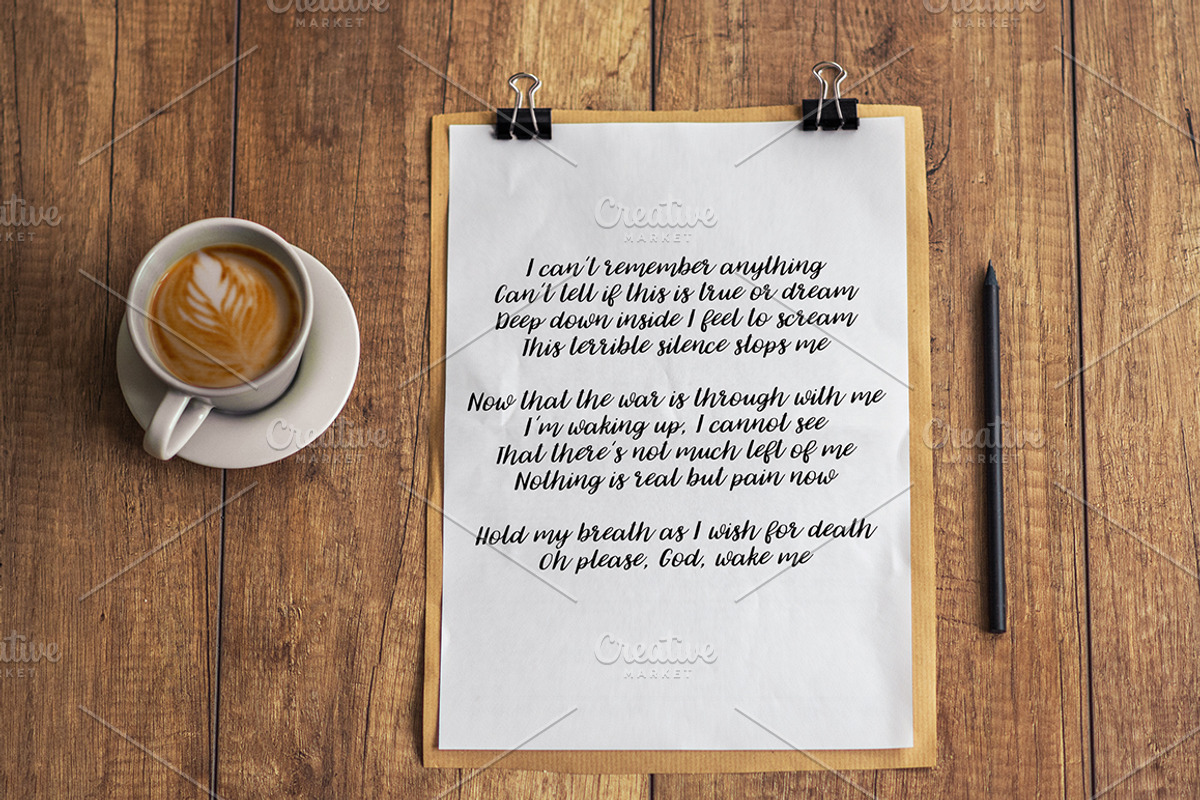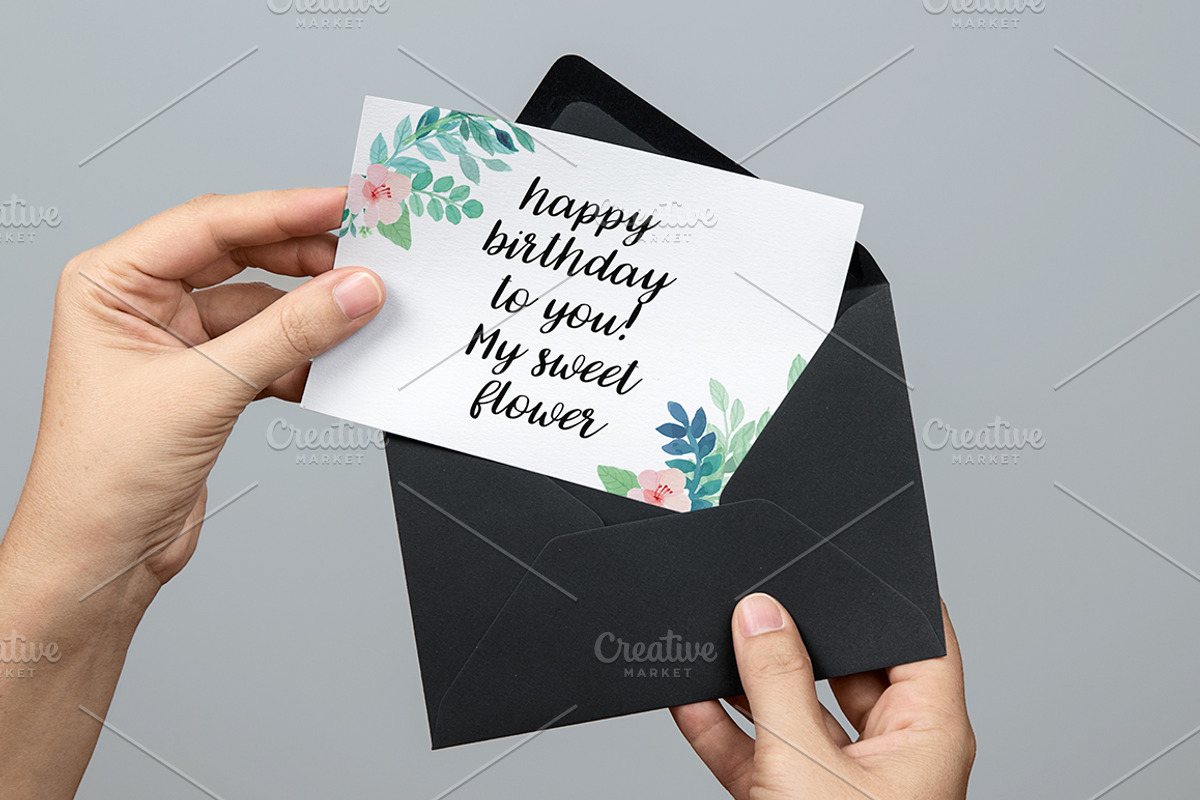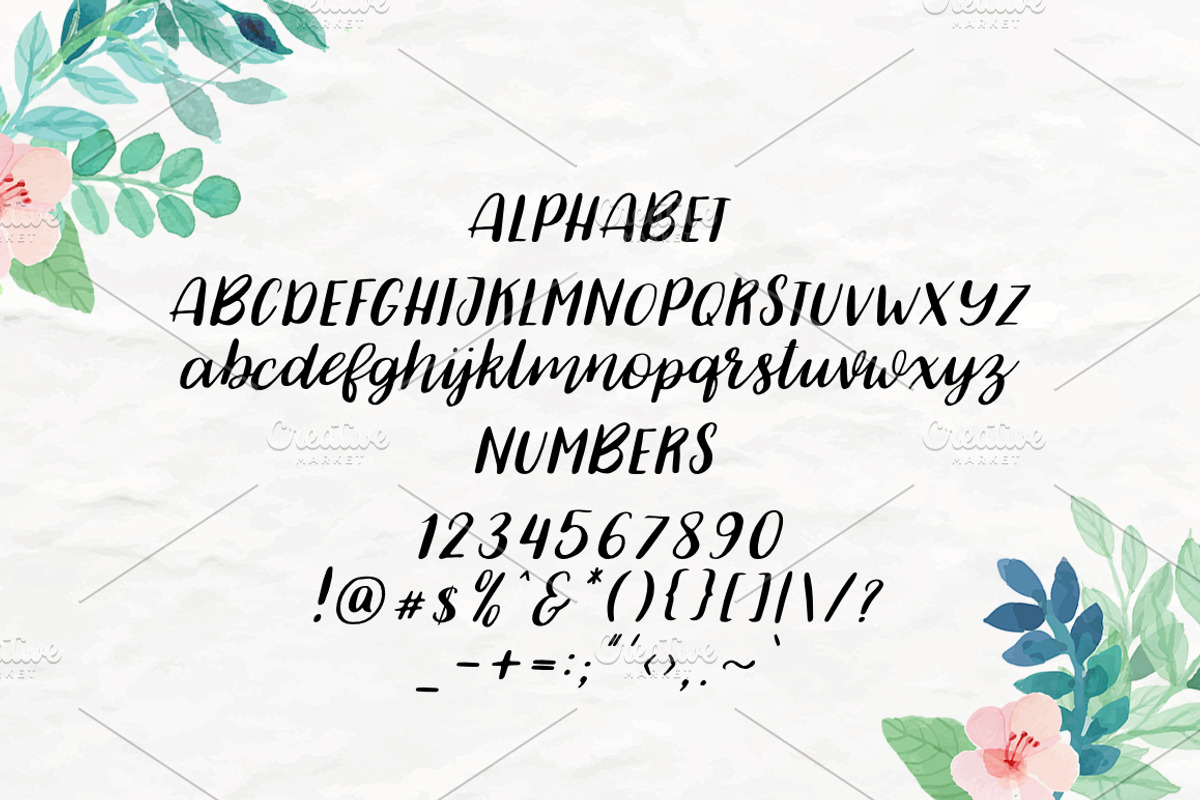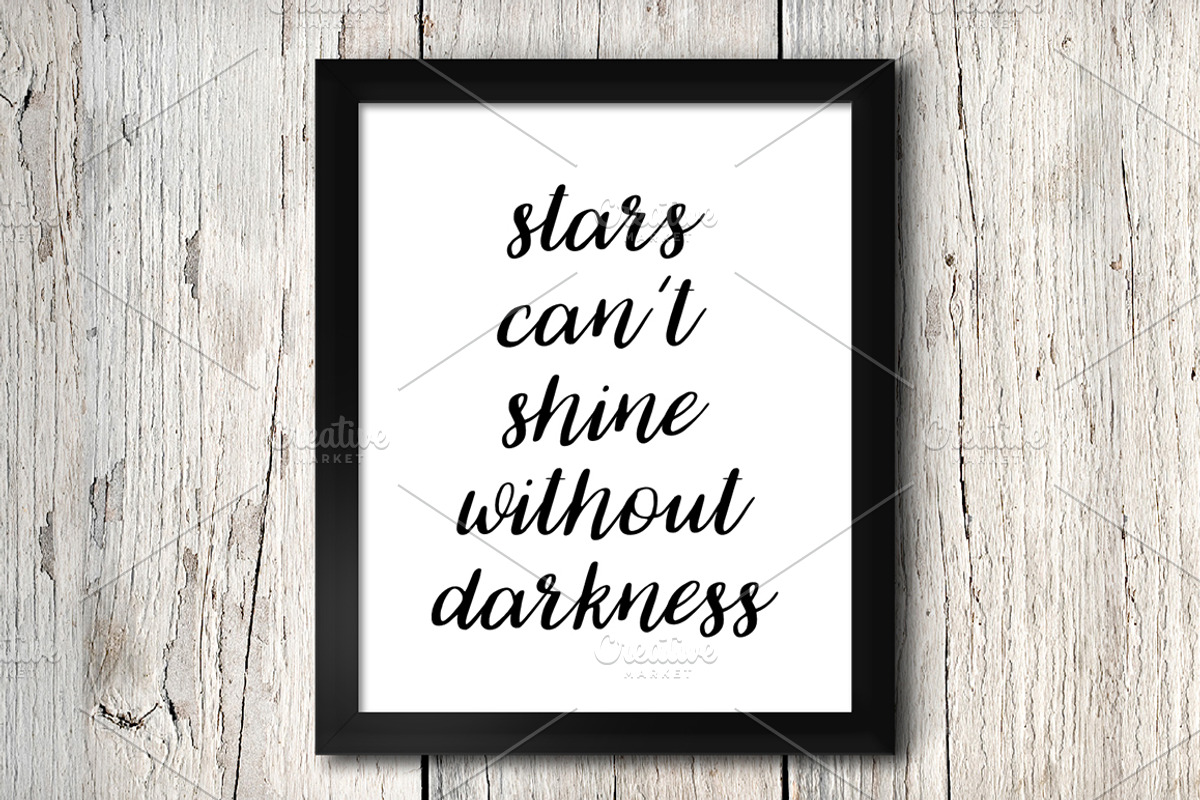
Jasmine handwriting font
Jasmine handwriting font by BilberryCreates is a font selected for branding, posters, packaging, typography.
- Jasmine - includes many alternative characters.Is coded with PUA Unicode, which allows full access to all the extra characters without havin
Why Jasmine handwriting font is worth a look
Jasmine handwriting font by BilberryCreates fits naturally into Branding, posters, packaging, typography.